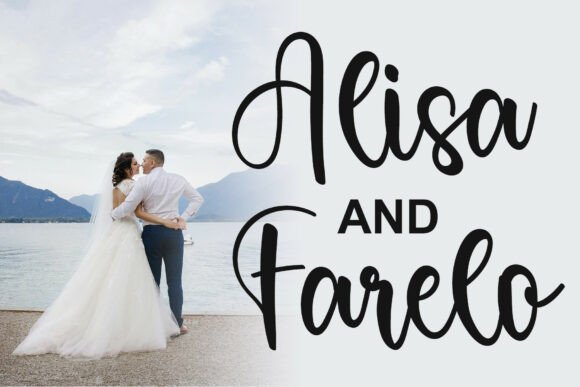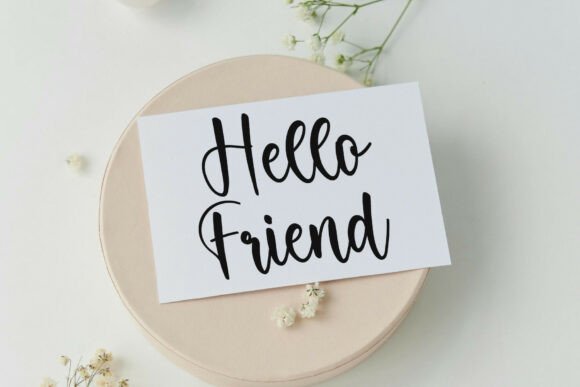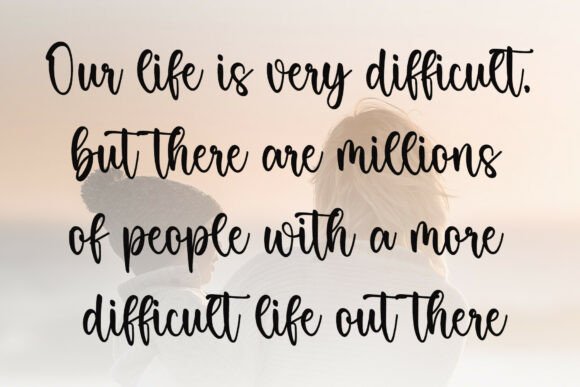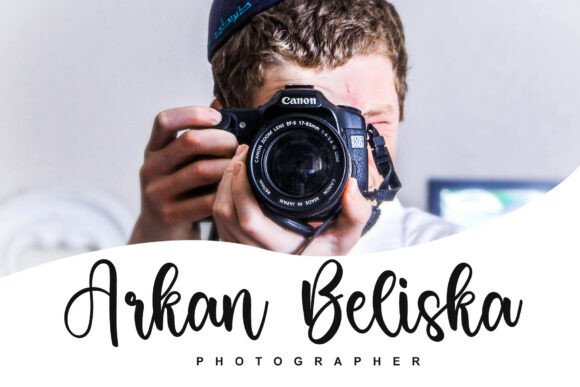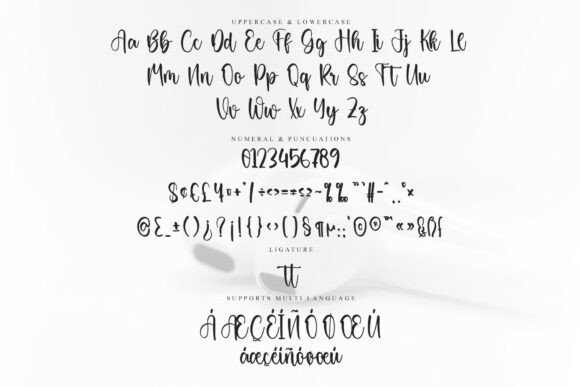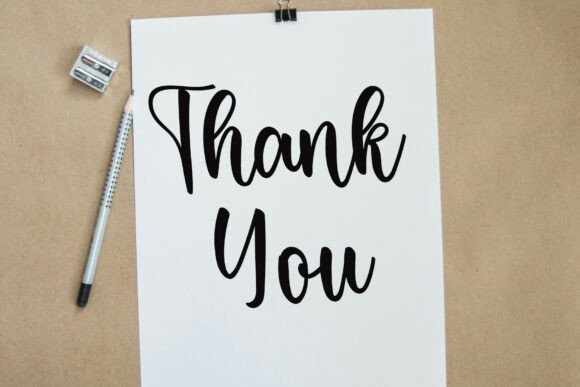
The Power of a Single Letter: Discovering the Healing Signature Font
Have you ever sat down with a blank sheet of paper and a pen, waiting for inspiration to strike? As a designer, I’ve had my fair share of those moments, where the blank page seems to stare back at me, daring me to create something beautiful. It’s in those moments that I’ve come to appreciate the importance of a well-crafted font, one that can transport me to a world of elegance and sophistication.
That’s exactly what the Healing Signature Font does. This stunning display handwriting font is designed to add a touch of class and personality to any design. Its flowing strokes and well-balanced curves create a sophisticated yet approachable feel, making it the perfect choice for designers who want to leave a lasting impression.
- Unique Characteristics: The Healing Signature Font features a soothing, hand-drawn design that evokes a sense of calmness and serenity, making it ideal for use in the healthcare and wellness industries.
- Script and Glyphs: The Healing Signature Font includes a wide range of script and glyph styles, including swashes, ligatures, and ornaments, to add a touch of personality and elegance to your designs.
Overall, I have mixed feelings about the “Healing Signature Font”. It’s a beautiful font, but it has some limitations that might not make it suitable for all projects.
- Clean and elegant design: The font has a soothing and calming effect, making it perfect for wellness, self-care, and spiritual projects.
- Unique character set: The font includes a range of special characters and symbols that add to its charm.
- Limited flexibility: The font is quite rigid and doesn’t lend itself well to customization or manipulation.
- Lack of font pairing options: The font is best suited for standalone use, and pairing it with other fonts can be challenging.
- No bold or italic variations: The font only comes in regular weight, which might limit its use in certain situations.
Overall, I think the “Healing Signature Font” is a lovely addition to any designer’s toolkit, but it’s essential to consider its limitations before using it in a project. With some careful planning and consideration, it can add a touch of elegance and sophistication to your designs.
Use the Healing Signature Font to add a touch of elegance and sophistication to your designs. This font is ideal for:
- Quotes and inspirational graphics
Remember to use the font in moderation to avoid overwhelming your design.